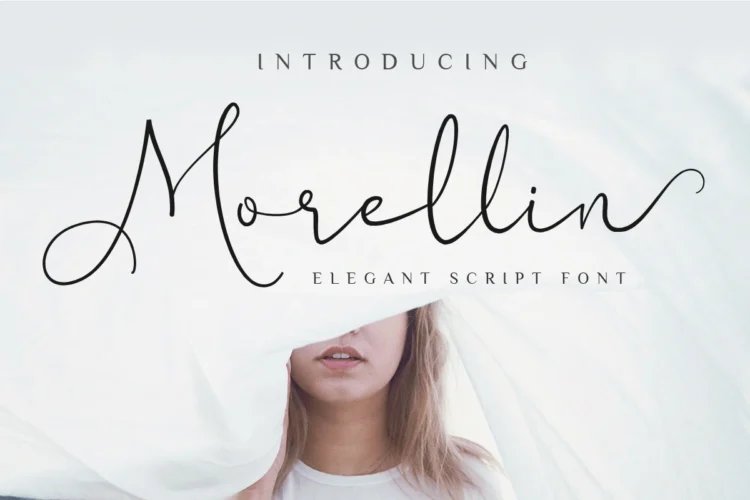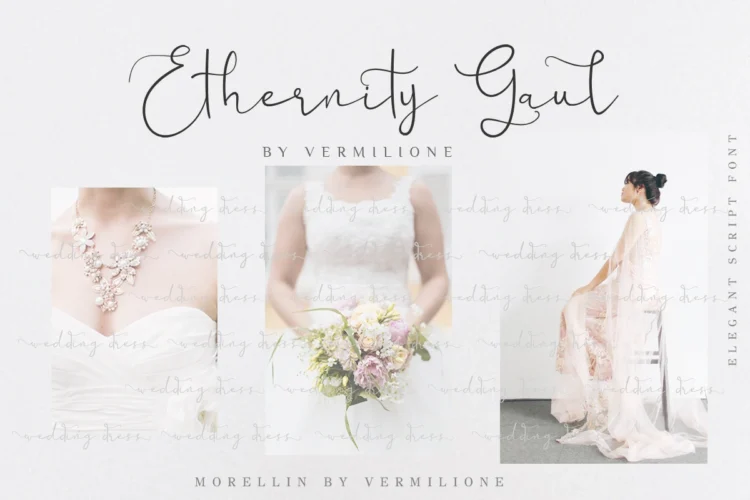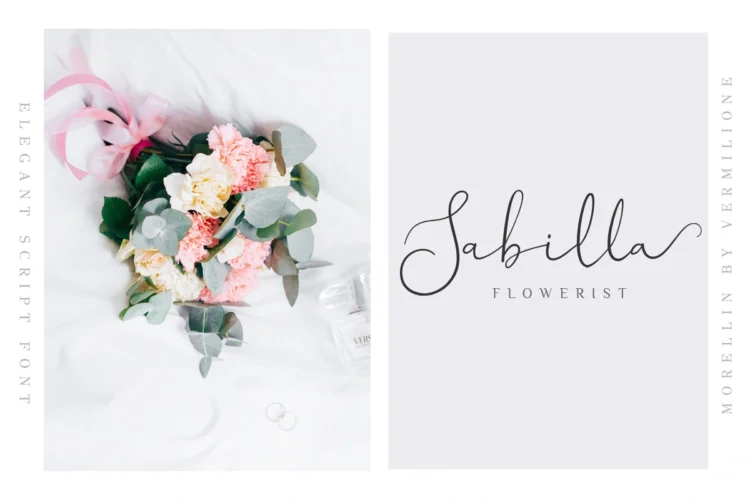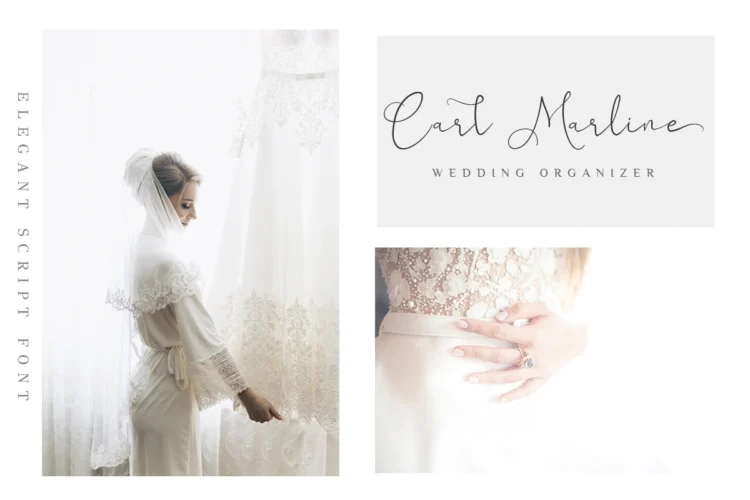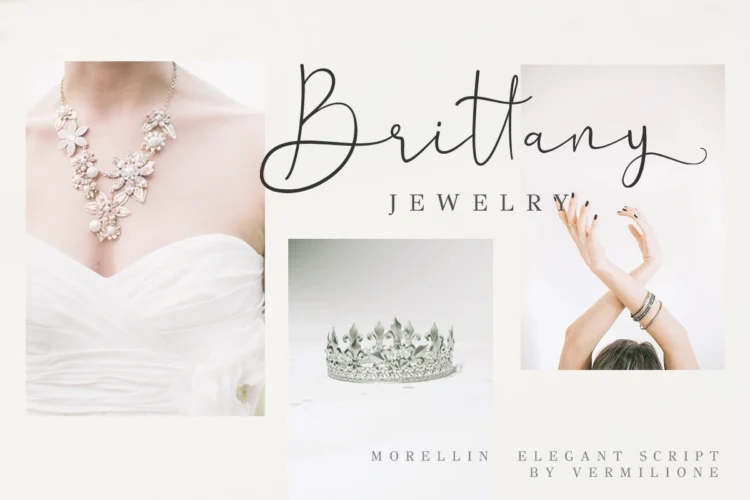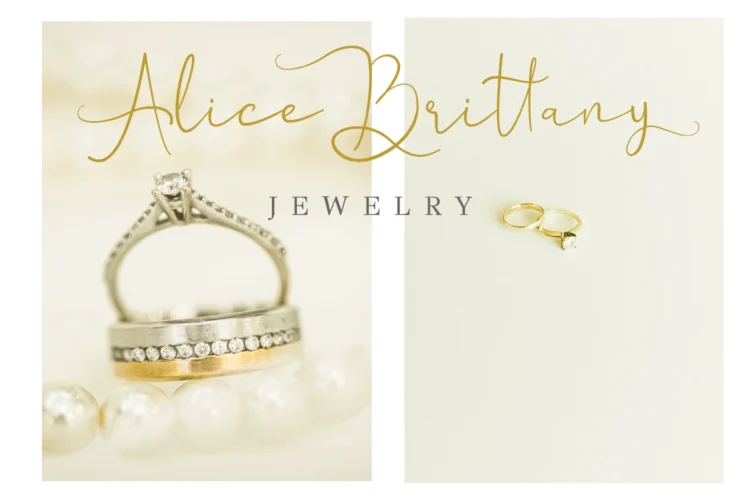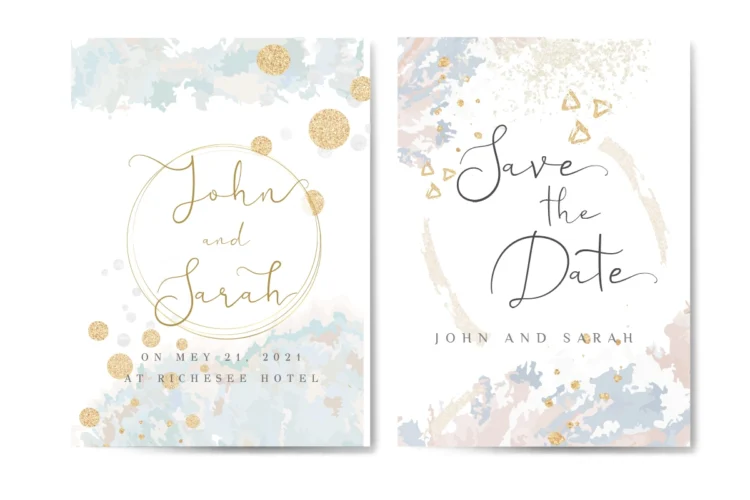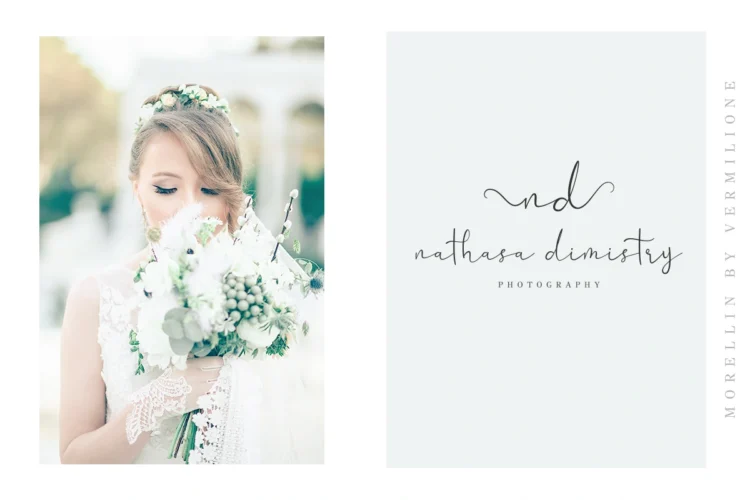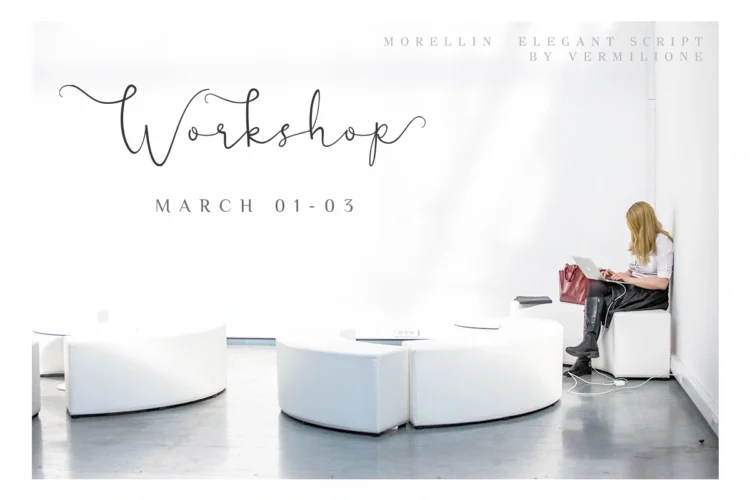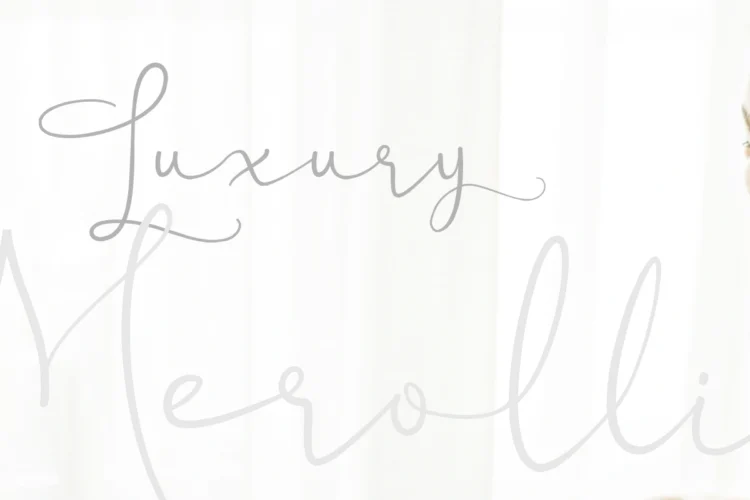
Morellin includes full set of gorgeous uppercase and lowercase letters, numerals, a large range of punctuation and ligatures. And multilingual support.All lowercase letters include beginning and ending swashes, giving realistic hand-lettered style. All uppercase letters include beginning swashes, that makes the font look fabulous!